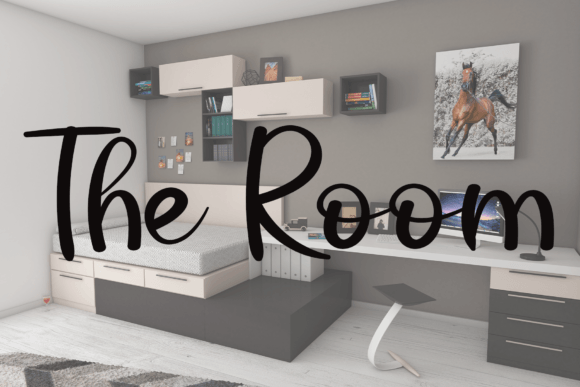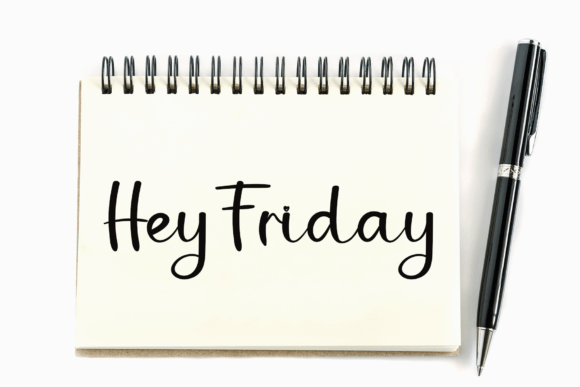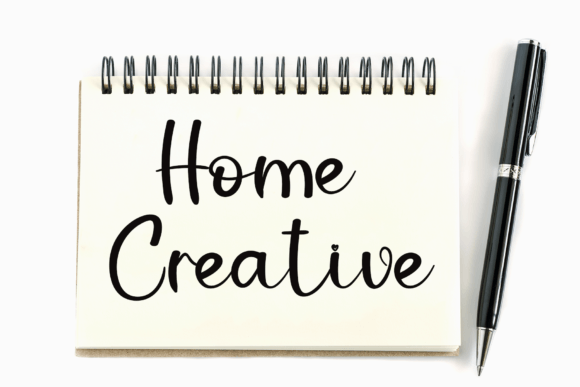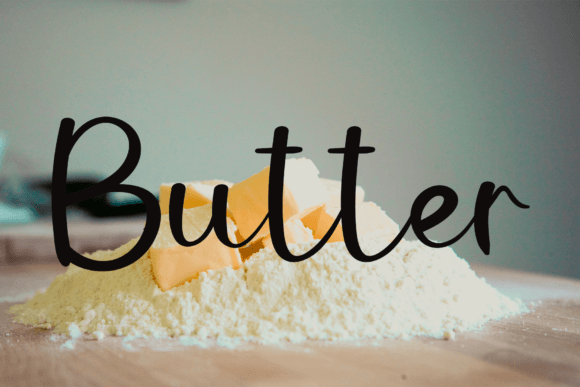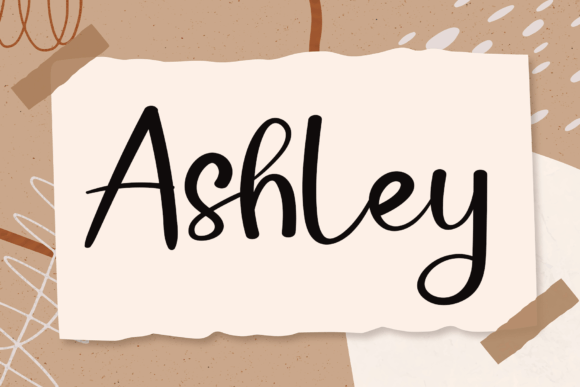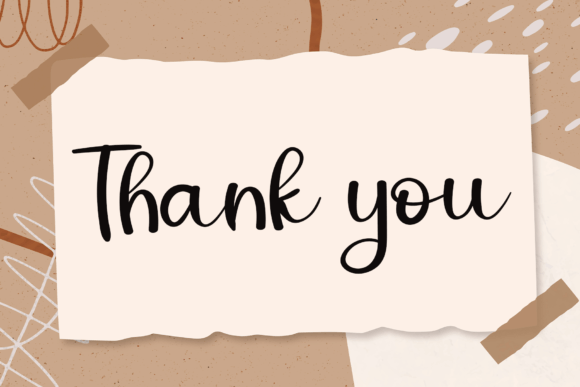
Ontime Font
About Ontime Font
“**Ontime**” is more than just a font; it’s a dance of characters that brings a touch of sweetness and luxury to your design projects. This handwritten font is adorned with characters that gracefully move along the baseline, creating an elegant and dynamic visual experience.
The beauty of “Ontime” lies in its ability to add a luxurious spark to a wide range of design endeavors. Whether you’re working on invitations, branding, social media graphics, or any other creative project, this font is designed to elevate and enhance the overall aesthetic.
The dance of characters along the baseline adds a sense of movement and rhythm to the text, making it visually appealing and distinctive. This feature makes “Ontime” particularly well-suited for projects where you want to convey a touch of sophistication and charm.
Consider using “Ontime” for wedding invitations, upscale branding, product packaging, and any design where a handwritten, luxurious style is desired. The font’s versatility allows it to shine in various contexts, bringing a unique and memorable quality to your work.
Whether you’re a professional designer or an individual embarking on a creative project, “Ontime” is your companion for infusing elegance and luxury into your designs. Let the dance of characters tell a story of sophistication and style, making each project a visual masterpiece.